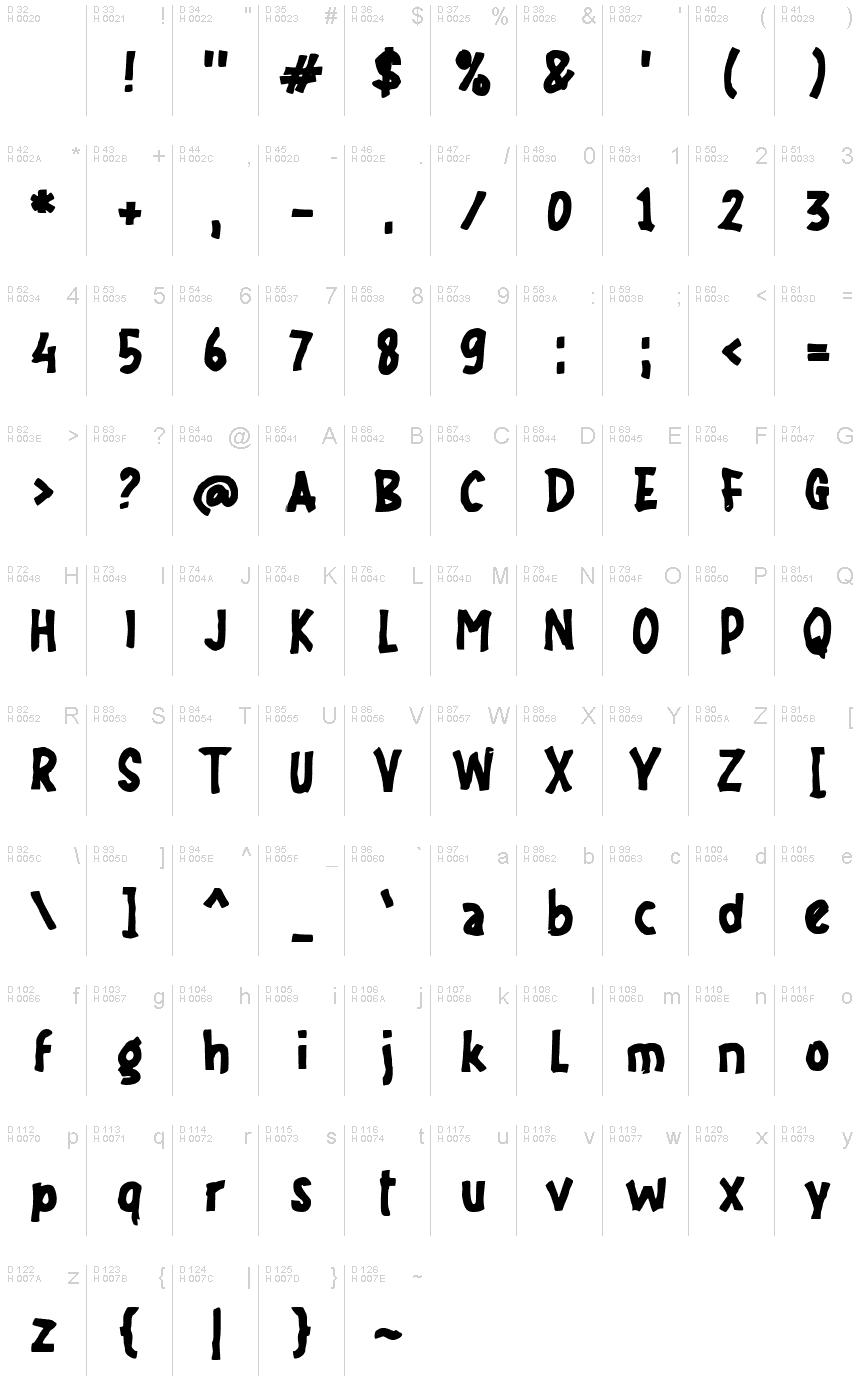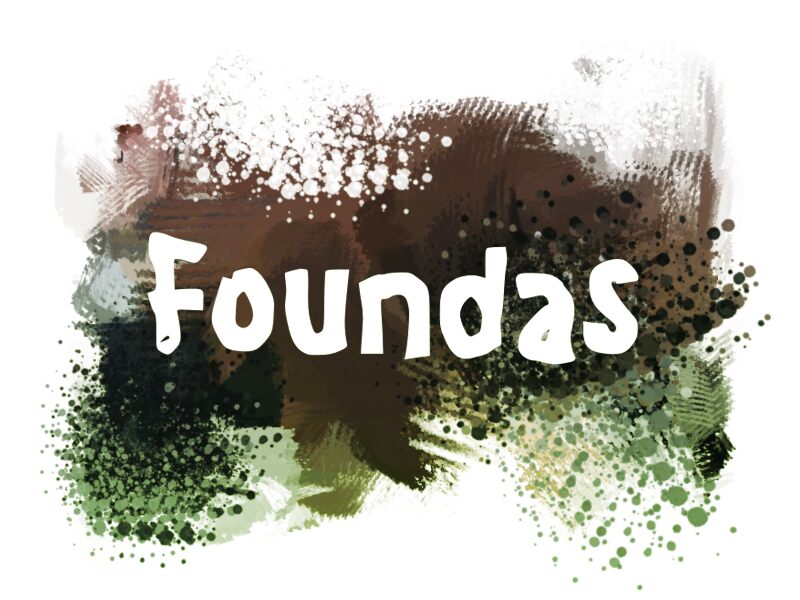
Foundas
Foundas, a bold and distorted display font by wep, adds a touch of edginess to any project.
Its unique design is perfect for creating eye-catching headlines, branding materials, and album covers. The semi-condensed width allows for efficient use of space while maintaining legibility. Whether you're designing posters for a music festival or crafting striking social media graphics, Foundas is the ideal choice to make your message stand out.
Let your creativity run wild with this captivating font that demands attention.
Its unique design is perfect for creating eye-catching headlines, branding materials, and album covers. The semi-condensed width allows for efficient use of space while maintaining legibility. Whether you're designing posters for a music festival or crafting striking social media graphics, Foundas is the ideal choice to make your message stand out.
Let your creativity run wild with this captivating font that demands attention.